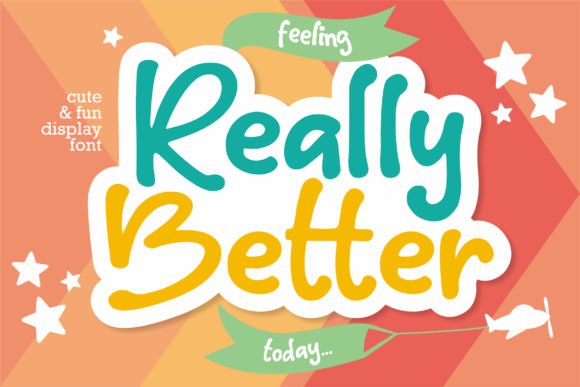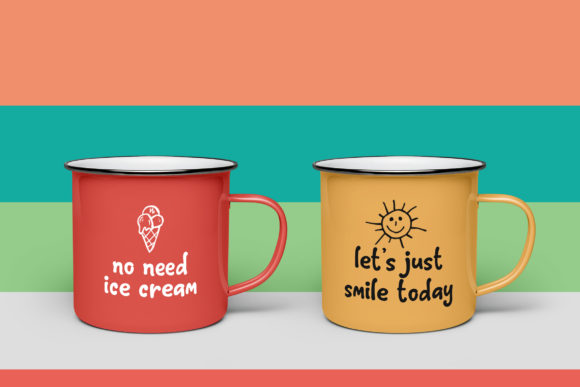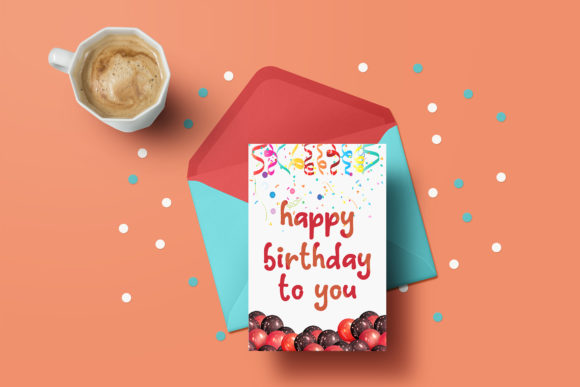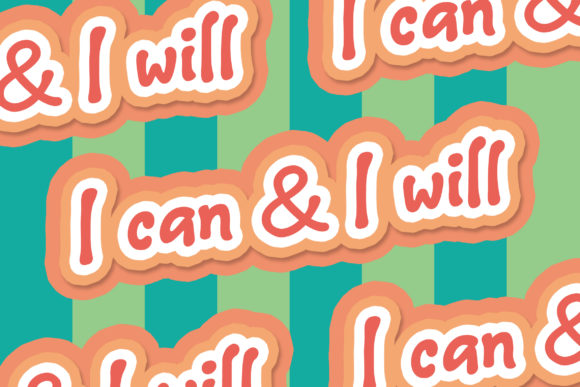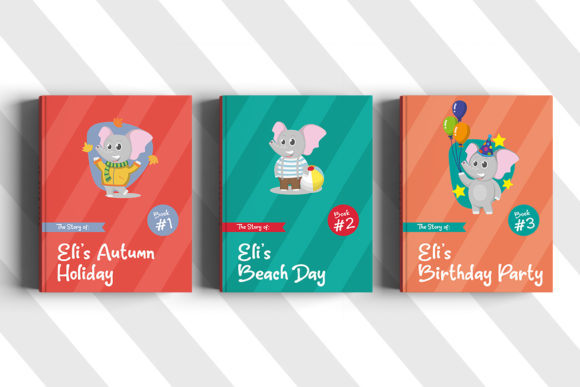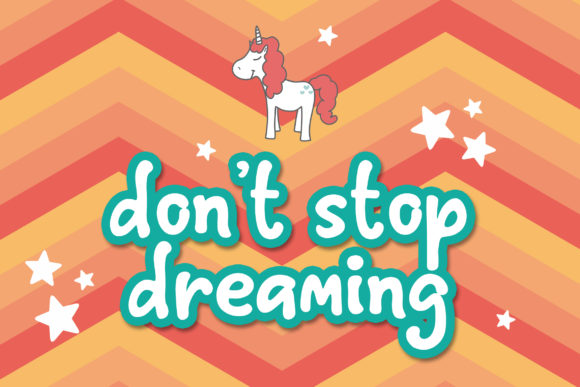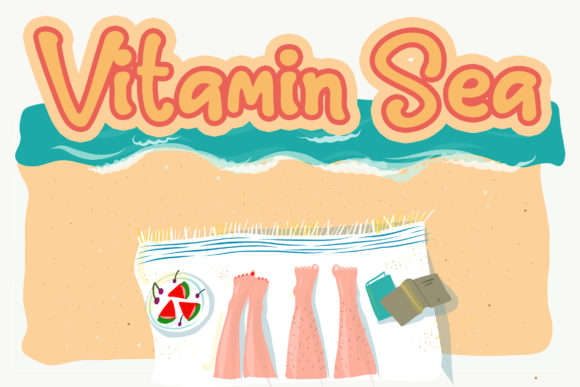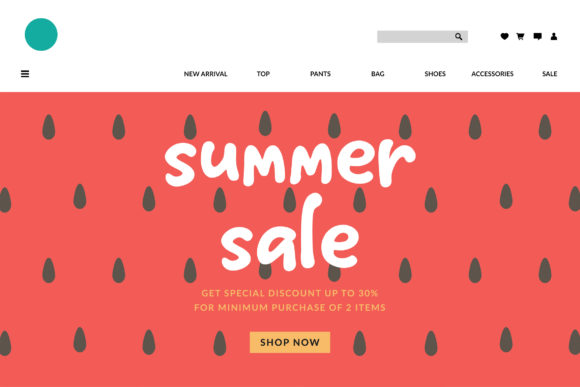
Really Better Font
About Really Better Font
Really Better is a bold and fun display font with a whimsical twist. Get inspired by its playful charm, and turn any design project into a true stand out!